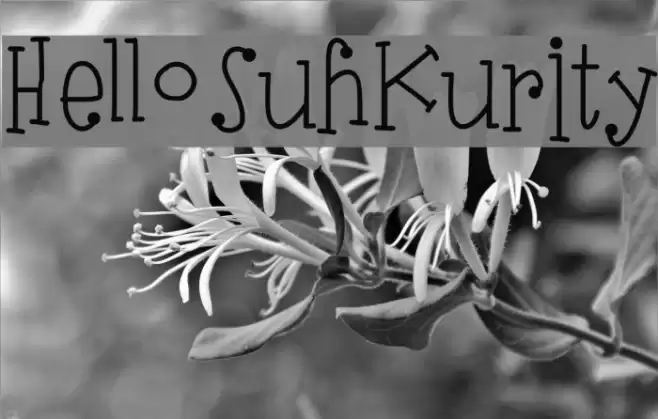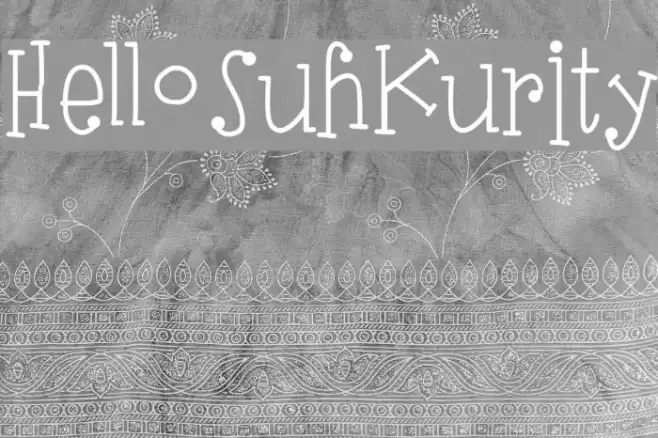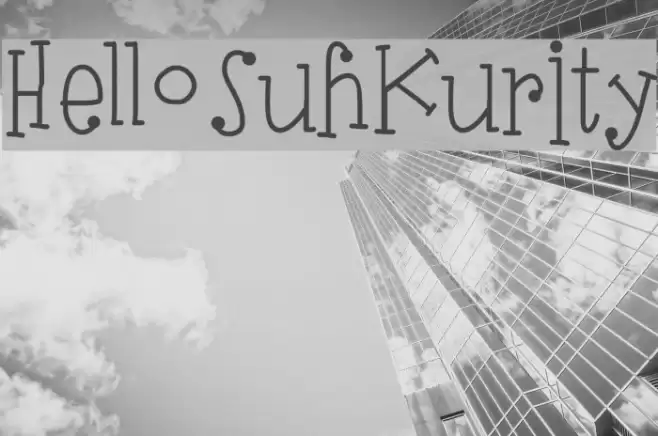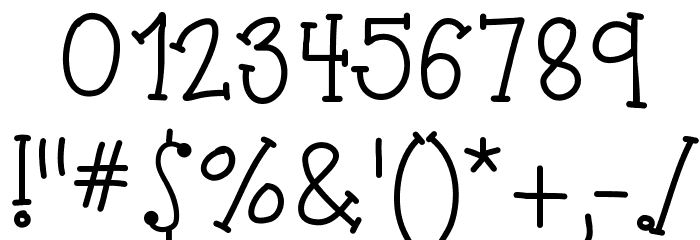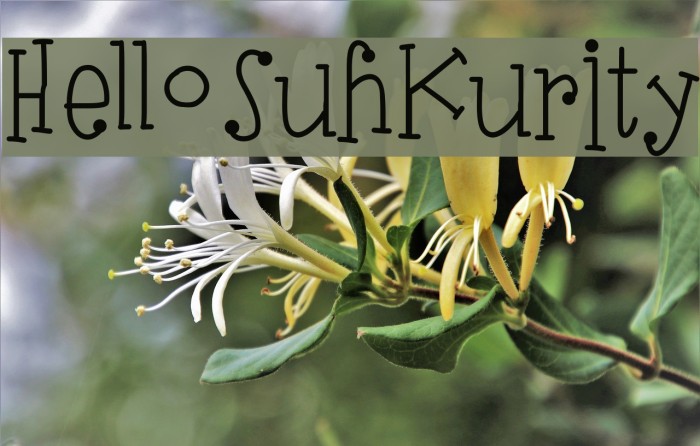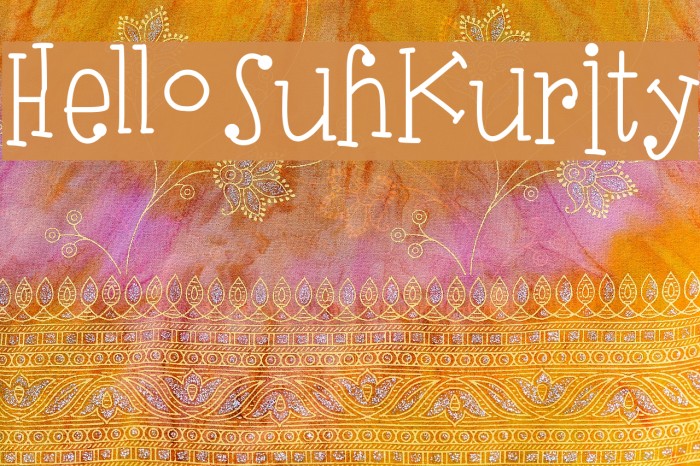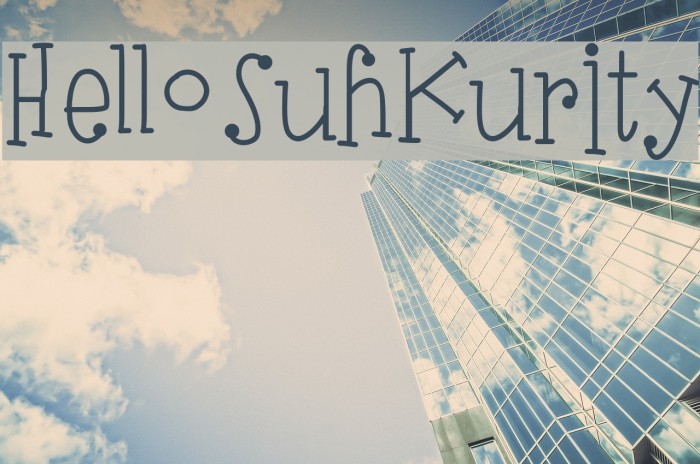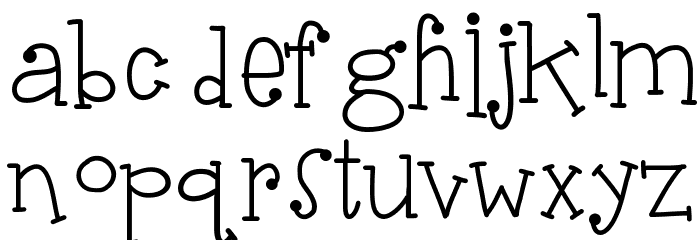
HelloSuhKurity Font
HelloSuhKurity Description
This playful and whimsical font features a hand-drawn style with irregular, quirky letterforms. The uppercase letters have a tall and narrow appearance, while the lowercase letters are more rounded and compact. The strokes are uneven, adding to the casual and informal feel of the font. The numbers and special characters maintain the same playful aesthetic, with exaggerated curves and varying stroke widths. This font exudes a sense of fun and creativity, making it ideal for projects that require a lighthearted and informal touch.
A playful, hand-drawn font with quirky, irregular letterforms from Uncategorized fonts.
- Proposed Projects: Ideal for children's books, greeting cards, playful branding, and creative posters.